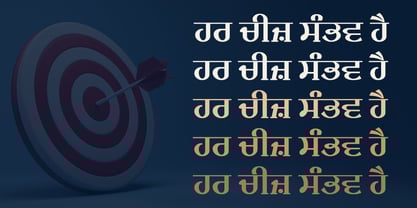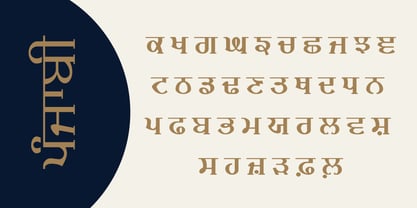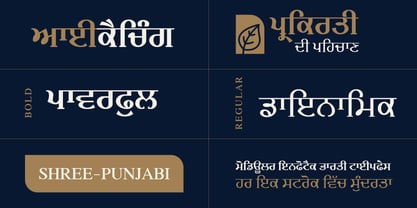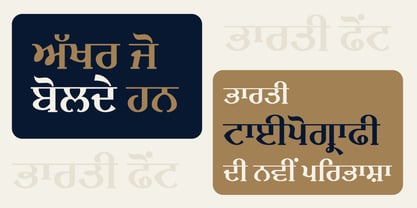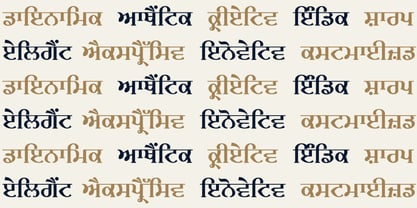
Shree Punjabi 0953
by Modular InfoTech
The Shree Punjabi 0953 Font Family was designed by Modular Infotech and published by Modular InfoTech. Shree Punjabi 0953 contains 4 styles and family package options.
Shree Punjabi 0953 stands out with its elegant and slightly more decorative style, blending traditional Gurmukhi elements with a contemporary touch. Its distinct letterforms and smooth strokes lend a graceful appearance, making it suitable for creative projects that require a touch of cultural richness. Available in Regular and Bold weights plus Italics, this font provides flexibility for various design applications, from titles to highlighted text, while maintaining excellent legibility.
Ideal for cultural event promotions, festival banners, wedding invitations, religious publications, and artistic branding. Its refined aesthetic makes it suitable for editorial designs, packaging, and promotional materials that seek to evoke cultural pride and elegance. The bold weight enhances headlines and titles, while the regular weight is suitable for descriptive or explanatory text. It can also be used in digital content creation for social media posts and banners that need a traditional yet modern appeal.
About Modular InfoTech
Modular Infotech (formerly Modular Systems), based in Pune, India, was established in 1983 to advance Indian scripts in the Printing Industry. The company began its journey by developing CRT-based phototypesetters (PTS100), which were launched in 1987. Without font generator tools, Modular created a proprietary font format, continuously enhancing it to meet evolving needs. Collaborating with artists across India, they built the Nation’s most extensive collection of original typefaces for all Indian Scripts.In 1989, Modular launched DOS-based software paired with Indic keyboard handlers using its proprietary font format. Adapting to technological advancements, they transitioned to industry-standard formats like TrueType (TTF) and Adobe Type1, culminating in the launch of their flagship multilingual software, Shree-Lipi, in 1991. This period also marked the rise of laser printers, prompting further innovation. The company later embraced OpenType font formats introduced by Microsoft, ensuring seamless compatibility with modern platforms.Today, Modular Infotech is renowned for possessing the world’s most extensive Indic fonts., designed to support India’s diverse linguistic heritage. Their fonts cover over 15 Indian languages, including Devanagari, Gujarati, Gurmukhi, Bangla, Assamese, Manipuri, Odia, Tamil, Kannada, Telugu, Malayalam, and Vedic Sanskrit. Each typeface is meticulously crafted for readability, cultural resonance, and aesthetic appeal, enabling authentic communication in regional languages.Modular fonts excel in rendering complex ligatures and unique glyphs, accurately capturing each script's stylistic and cultural nuances. Leveraging advanced OpenType technology, these fonts ensure flawless representation of intricate Indian scripts across print and digital mediums.The extensive font collection serves many industries, including Publishing, Design, Education, Newspapers, and Government sectors. Beyond facilitating multilingual communication, Modular Infotech is vital in preserving India’s linguistic heritage, bridging traditional and modern media needs. The company’s impact extends globally, with prominent International Clients such as Google, Microsoft, Apple, and RedHat relying on its expertise in Indic typography.Through its pioneering efforts and unwavering commitment to quality, Modular Infotech has made regional language content more accessible, visually impactful, and culturally authentic, cementing its place as a leader in Indic font development.